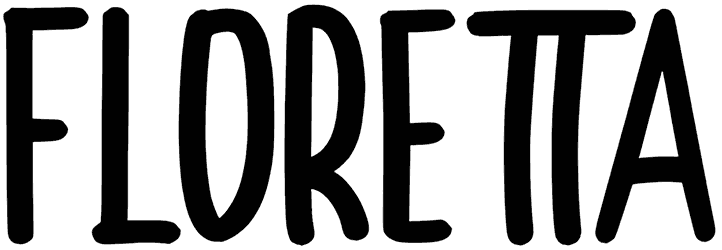
Floretta Font
Hold tight and come on to make an ultra-stunning text-based layout by applying this cartoon font. Floretta with a joyful vibe can be used for toy packaging, games, book covers, stationery labels, websites, and other needs.
This condensed font doesn’t contain lowercase letters, but the result will still be perfect without them. Just give it a shot, and if you find it helpful, introduce us to your buddies.